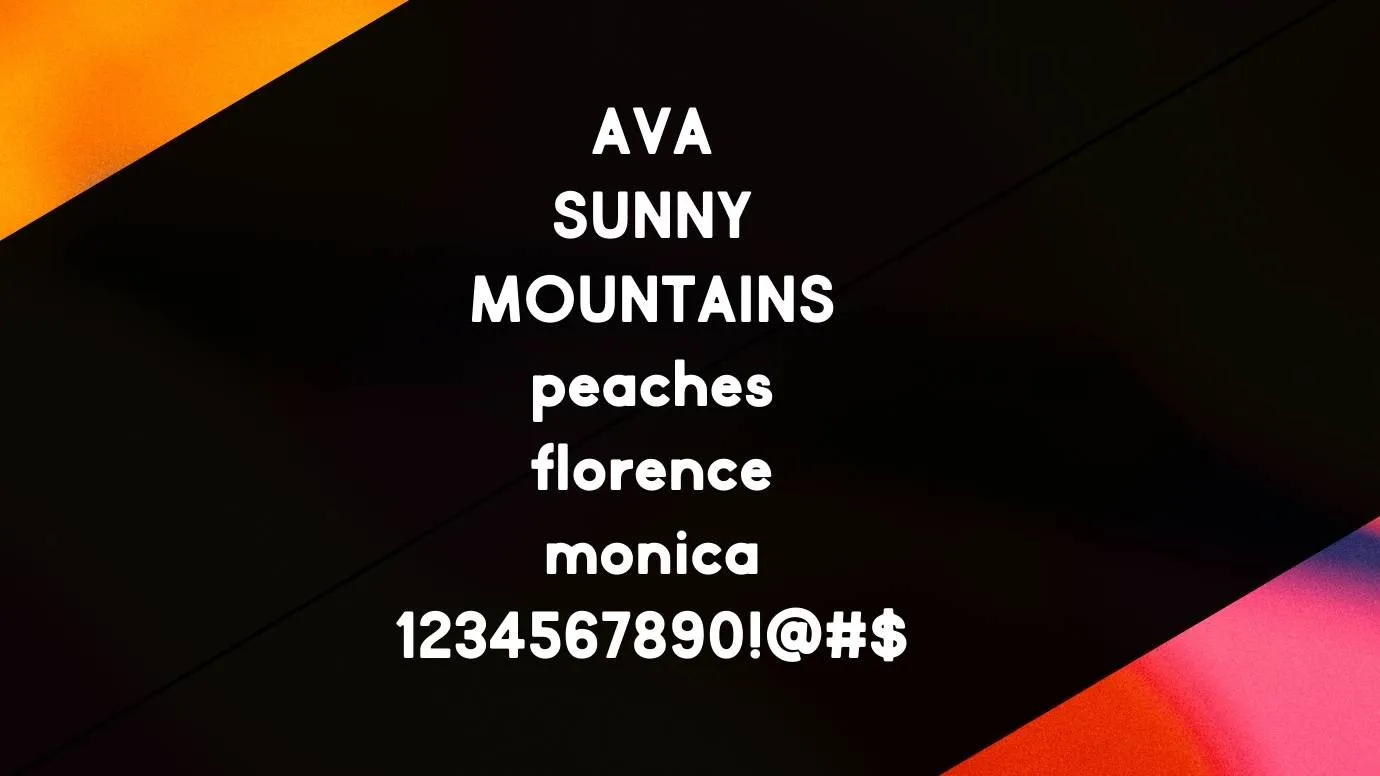
Market Fresh Font is a unique sans-serif style that comes in 6 unique styles and weights. The font is suitable for both text and display purposes. This Font was inspired by the work of Swiss graphic designer Adrian Frutiger. The result is a clean and modern-looking font that is perfect for a variety of applications.
Adrian is known for his use of geometric shapes in his work. The texturing of this typeface is great to work with the pairing of marlboro font. This font is also suitable for making Websites, Logos, Print materials, Books, Magazines, Posters, Advertising, and more.
One of the great things about this Font is that it is very versatile. Additionally, the font includes a wide range of characters, including both uppercase and lowercase letters, as well as numbers and symbols.
This Font is a great choice for those who are looking for a modern and stylish typeface. It is versatile and can be used in a variety of contexts, making it a great all-purpose font. It is also very good for its copy-paste ability.
It is also commonly used in documents that are intended to be read by multiple people, as it is easy to read and looks good on paper. If you want to pair the typeface and gain much more effect on your designs then use fivo sans font in your practical designs.
Creator of Market Fresh Font
This amazing font is manufactured by a very notable designer named Brittney Murphy Design. While designing this font the font maker team focused on its bold texture and clean look.
- Market Fresh Regular
- Market Fresh Italic
- Market Fresh Bold
- Market Fresh Bold Italic
- Market Fresh Inline
- Market Fresh Inline Bold Italic
View of Market Fresh Font
| Name | Market Fresh Font |
| Style | Sans-serif |
| Designer | Brittney Murphy Design |
Is Market Fresh Font legible?
Yes, This Font is a highly legible font thanks to its simple and straightforward design. The font’s thick strokes make it easy to read even at small sizes.
Is Market Fresh Font good for Product packaging?
Yes, This Font is a good choice for product packaging. This font’s simple and clean design makes it easy to read, even in small sizes.